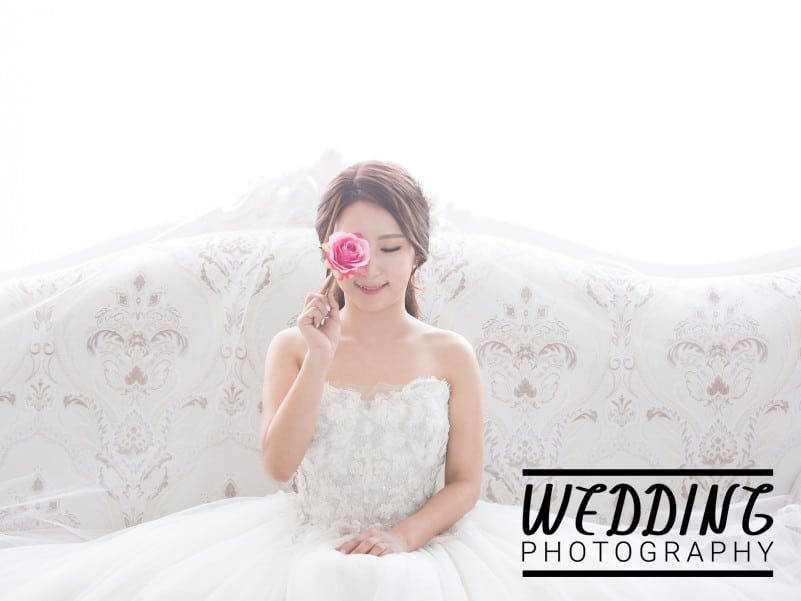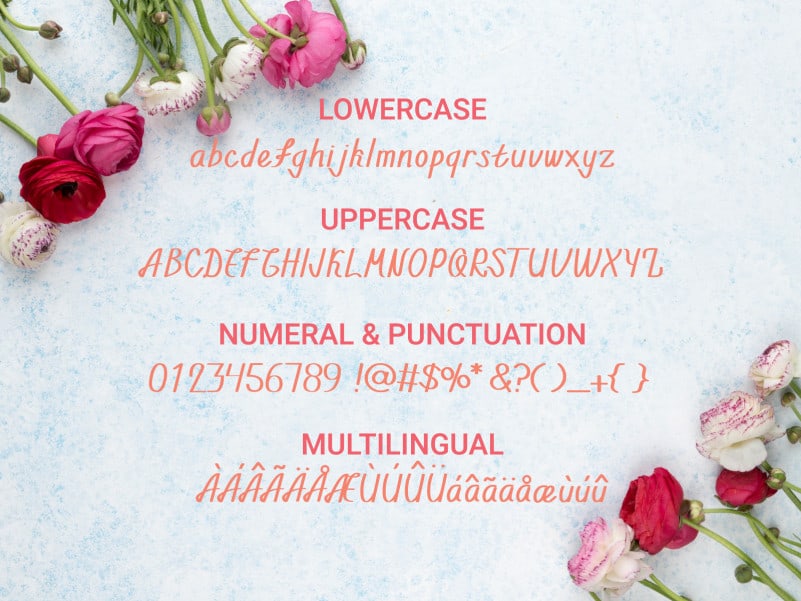
Walahard Script Font
Introducing Walahard Script Font, it\’s a sweet, soft handwritten font. Get inspired by its authentic feel and use it to create gorgeous wedding invitations, beautiful stationary art, eye-catching social media posts, and cute greeting cards.
Ready to use for projects, texts, letters, or whatever you want!